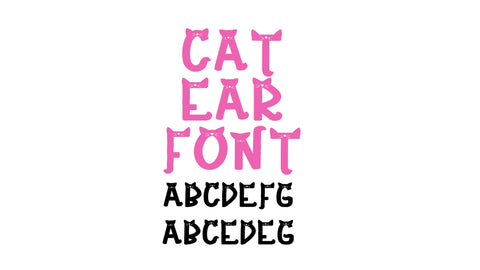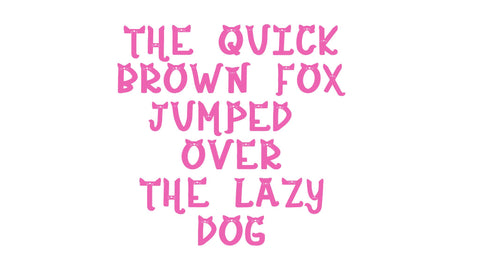
Cat Ear Regular Font
This font will be perfect for all your Craft projects! Use it to make custom shirts, keychains, valentines, tags, bags, and whatever else you can think of!